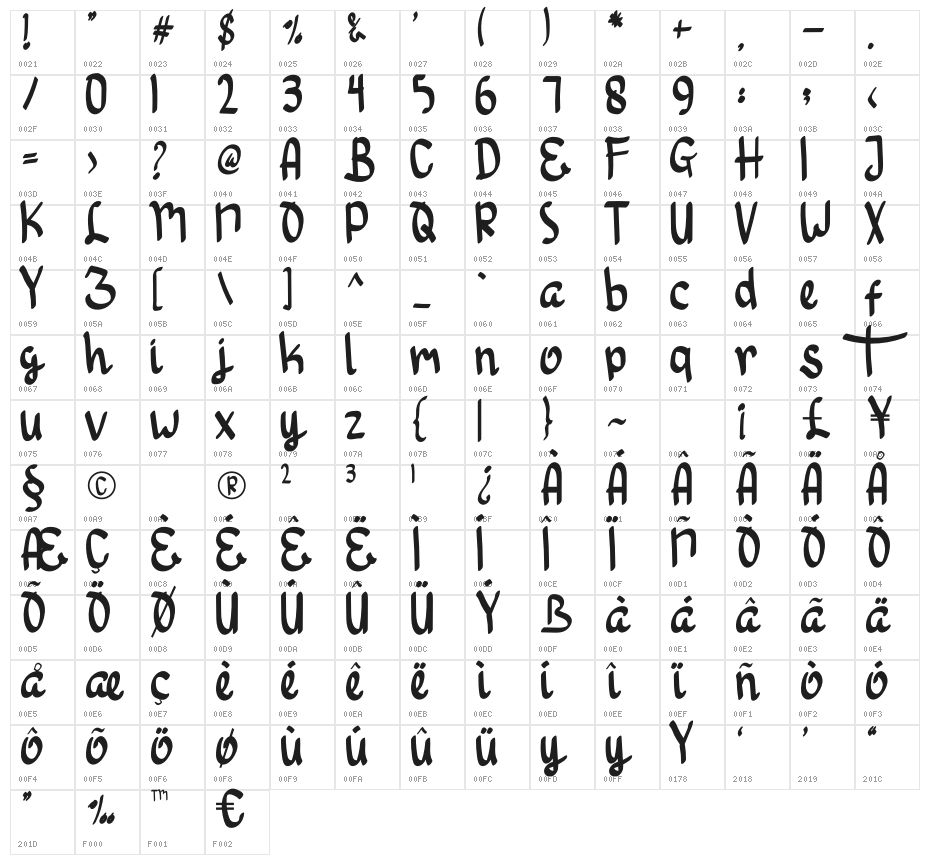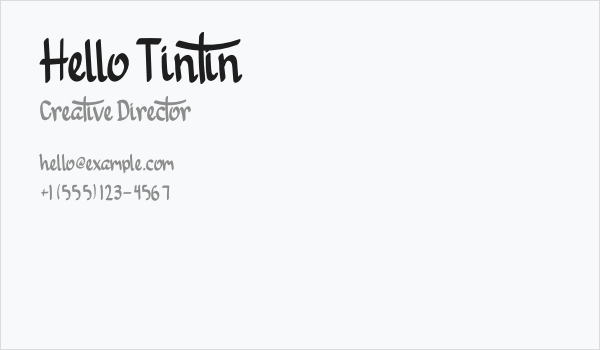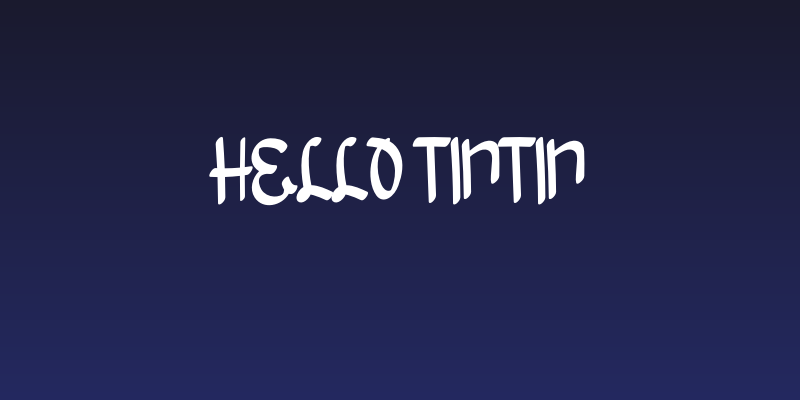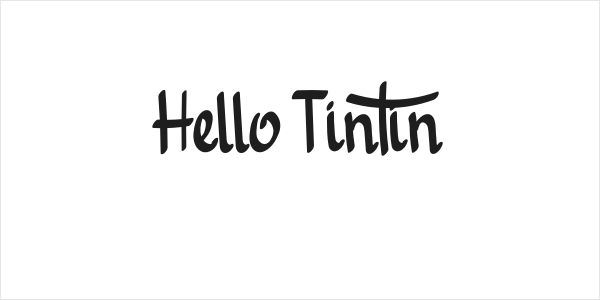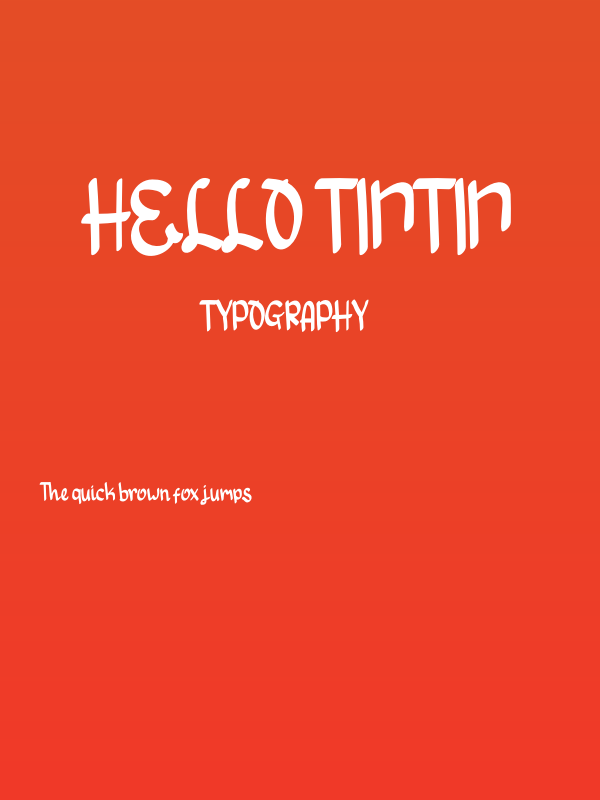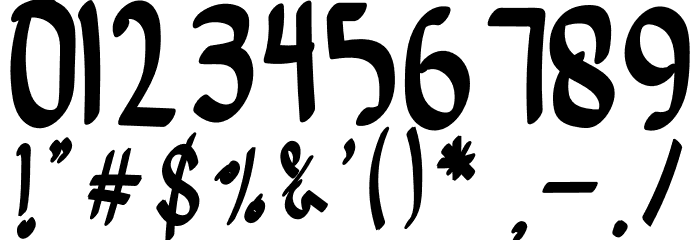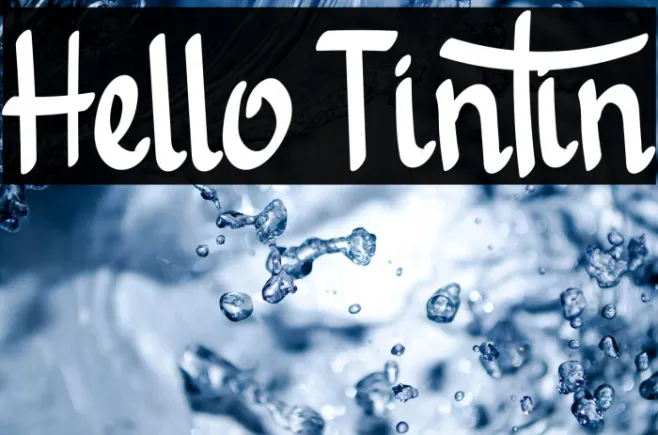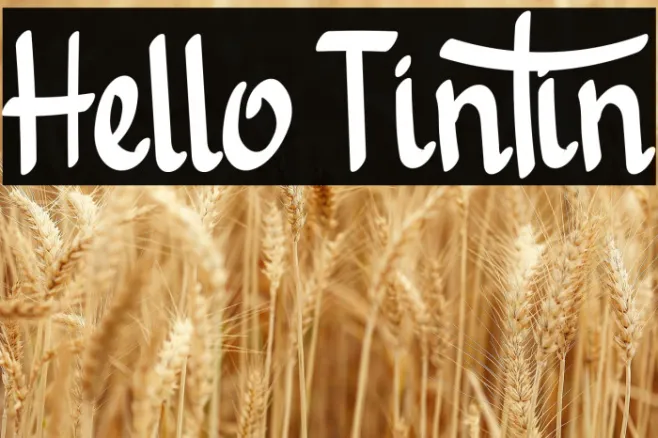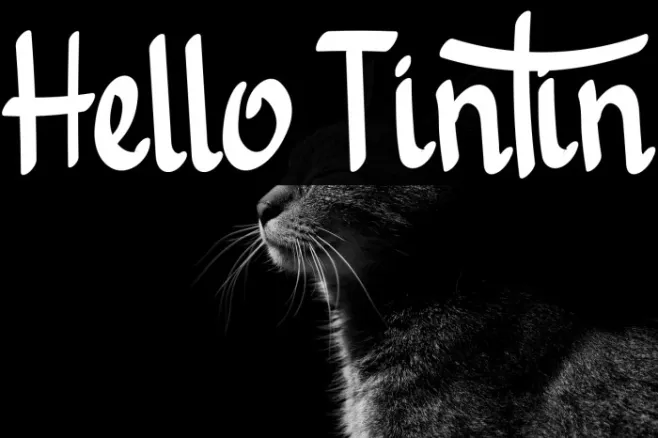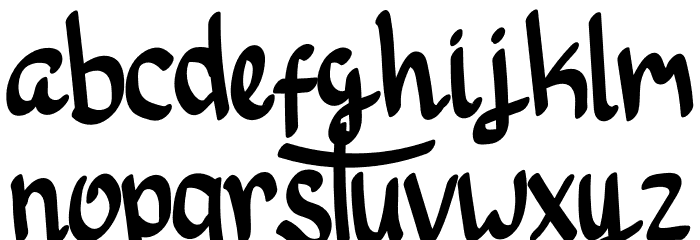
Hello Tintin Font
Hello Tintin Description
This font features a playful and bold handwritten style, characterized by its thick strokes and rounded edges. The uppercase letters are tall and slightly narrow, while the lowercase letters maintain a consistent height, adding to the casual and friendly appearance. The numbers are bold and easily readable, with a slight whimsical touch that complements the overall design. Special characters are creatively integrated, maintaining the font's lively and approachable aesthetic. This font's unique style makes it suitable for projects that require a personal and informal touch.
| Overall Style | Playful, Casual |
| Proposed Projects | Ideal for children's books, greeting cards, playful branding, and social media graphics. |